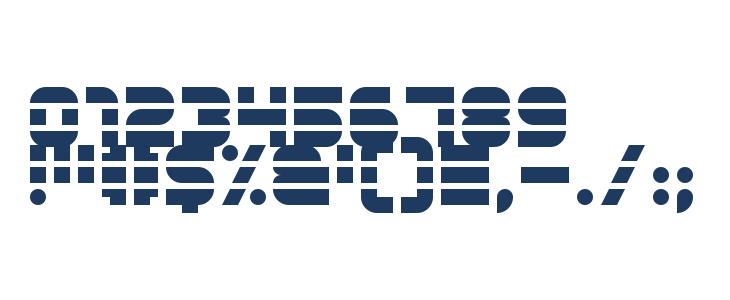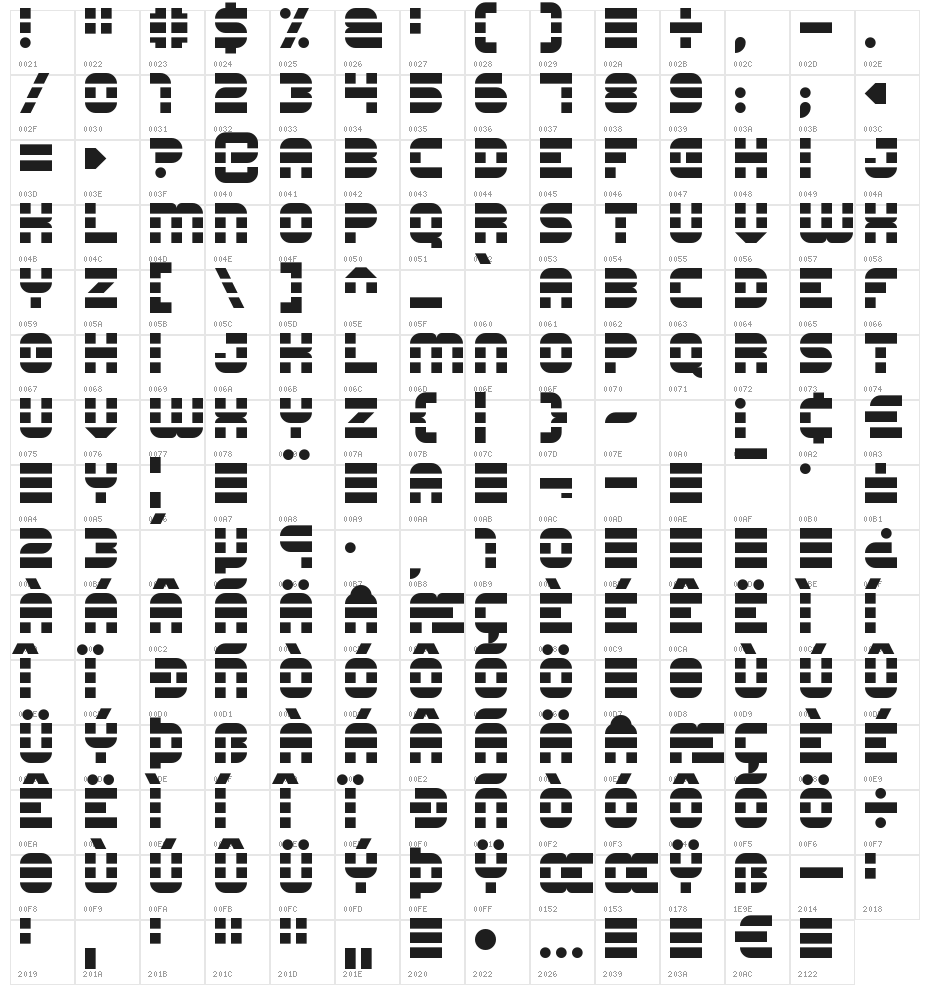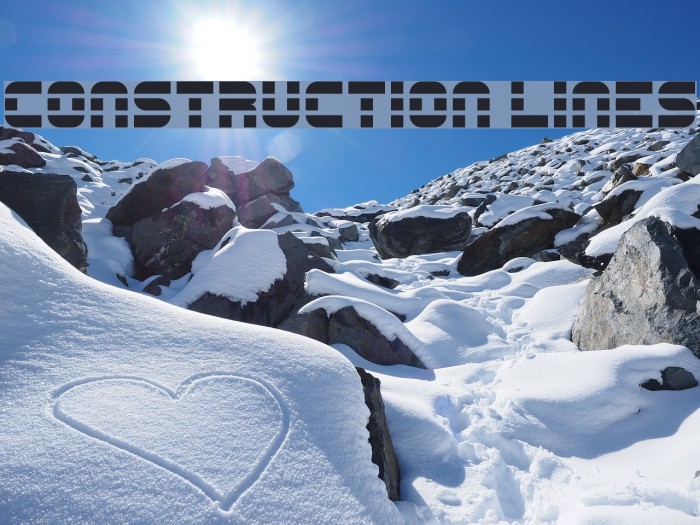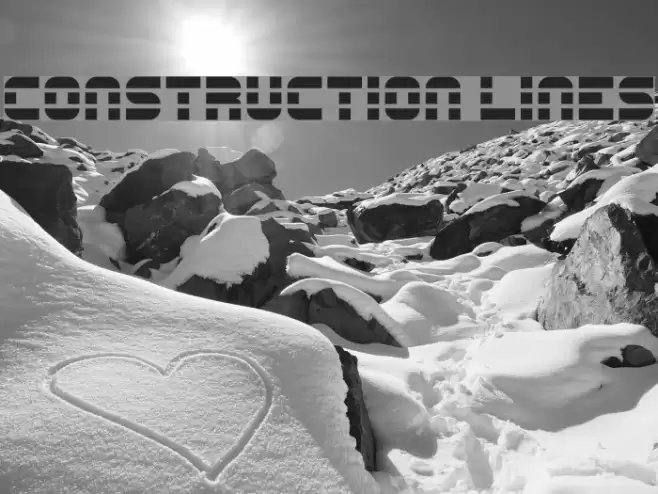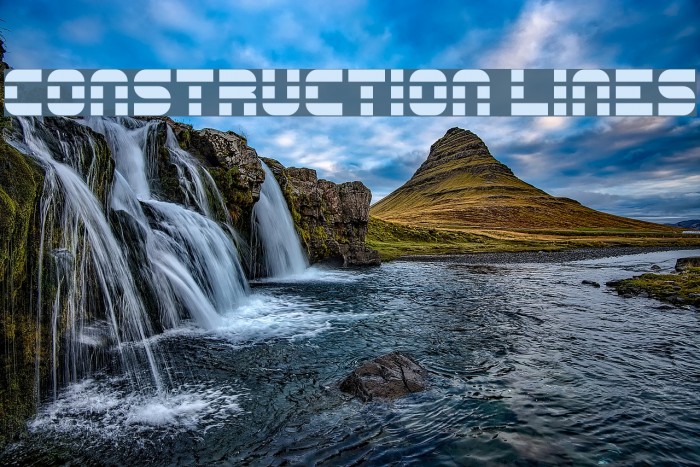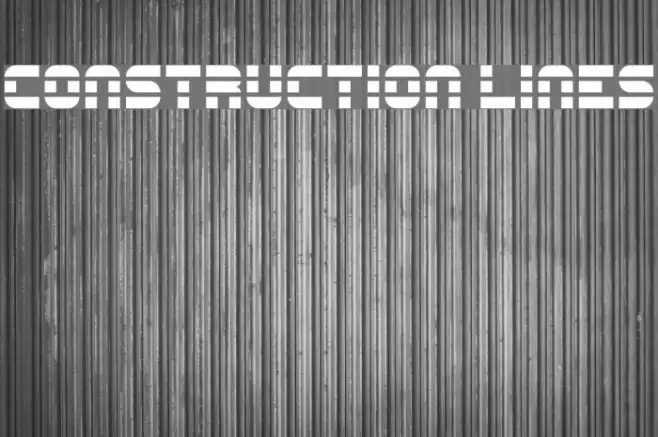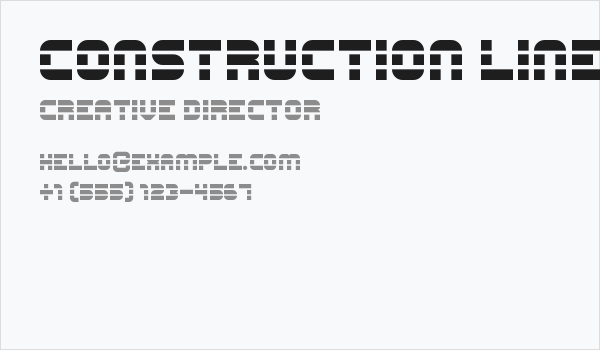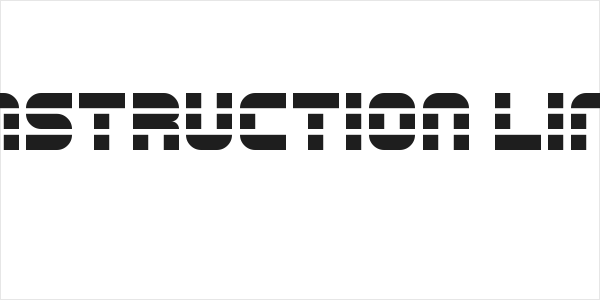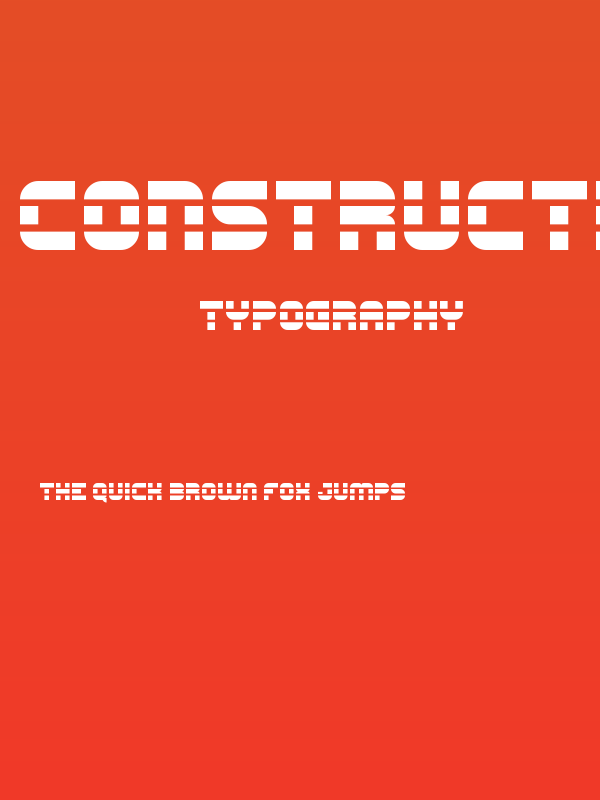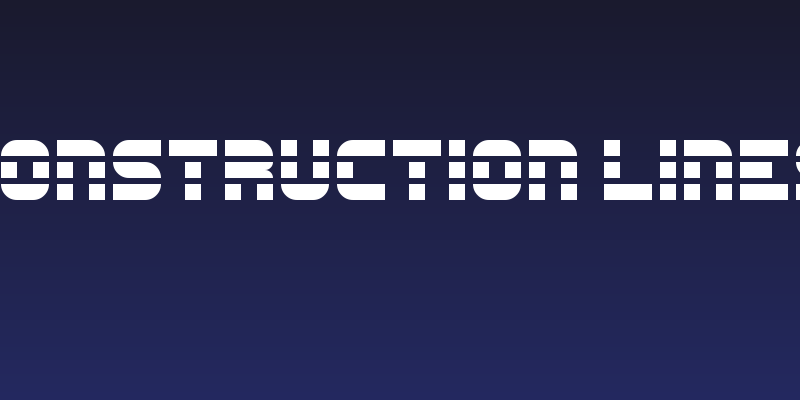
Construction Lines Font
Construction Lines Description
This font features a bold, geometric design with a stencil-like appearance. Each character is constructed with solid, blocky shapes that are interrupted by evenly spaced gaps, giving it a modern and industrial feel. The uppercase and lowercase letters maintain a consistent height, while the numerals and special characters follow the same structural pattern. The design is highly legible and makes a strong visual impact, suitable for attention-grabbing headlines or branding materials. The uniformity and precision of the characters suggest a sense of order and strength.
| Proposed Projects | Ideal for branding, posters, signage, and any project requiring a strong, industrial look. |